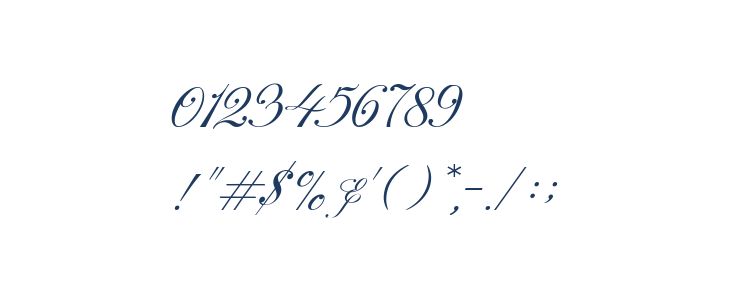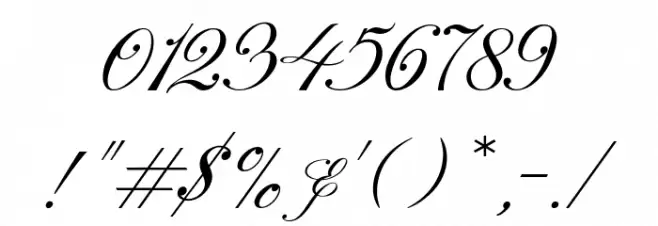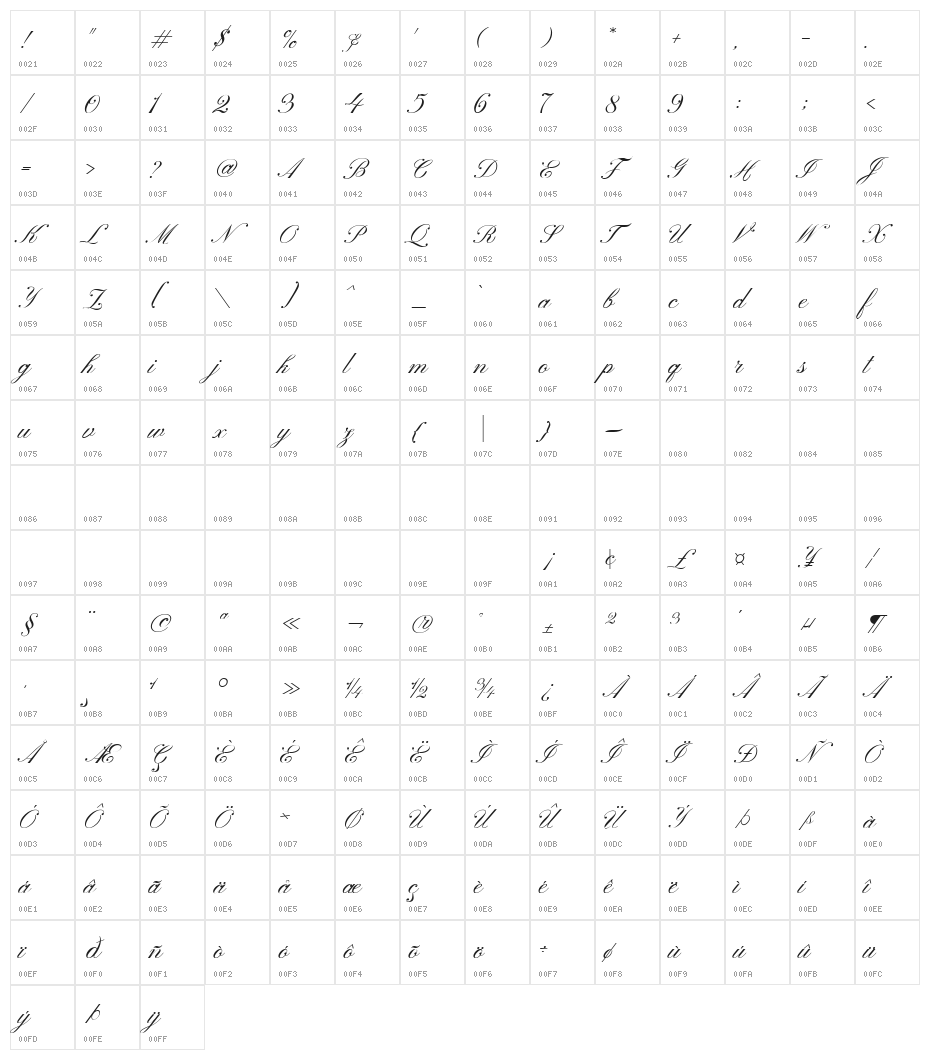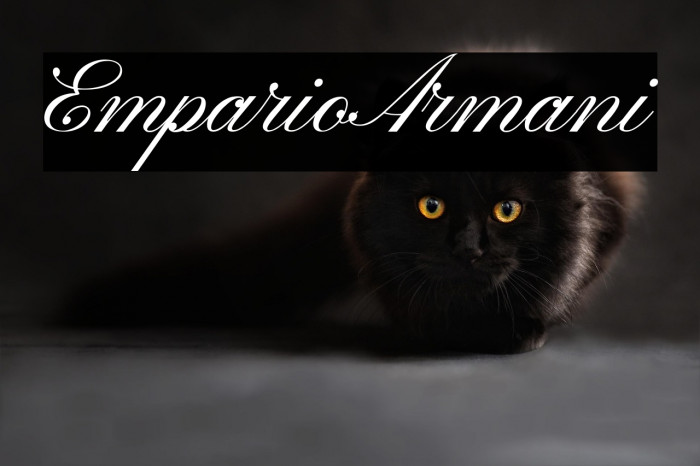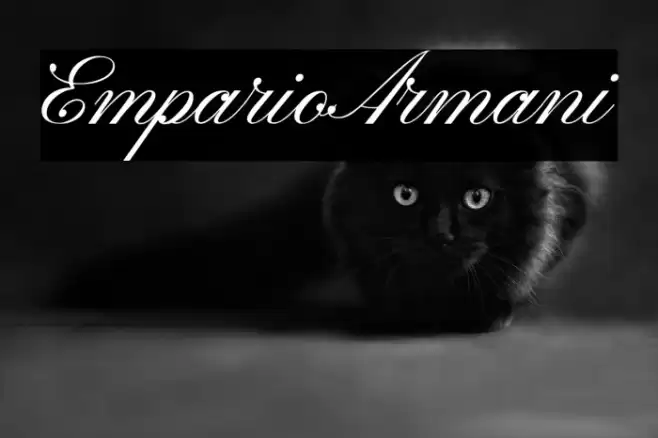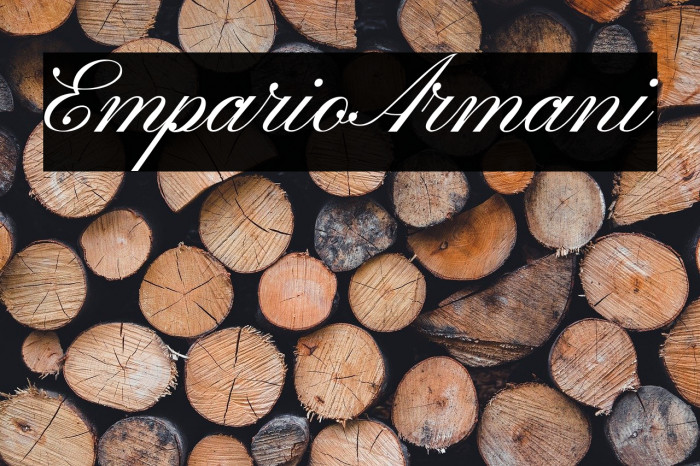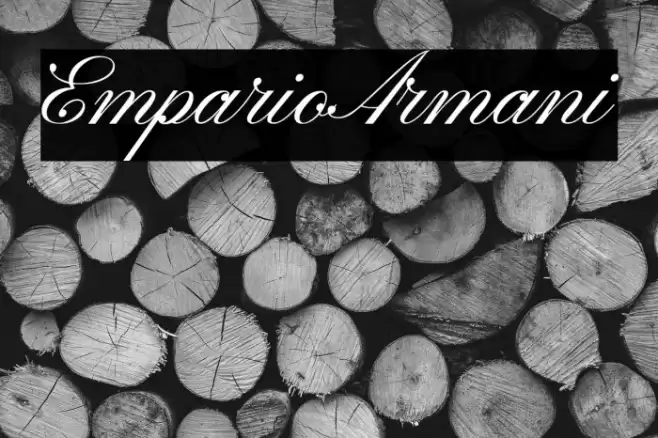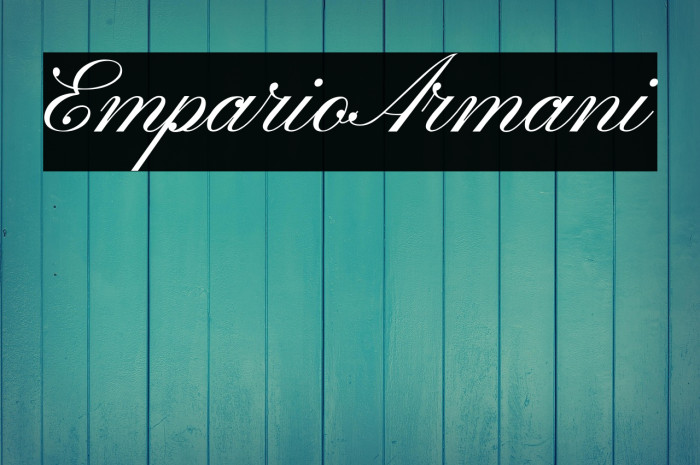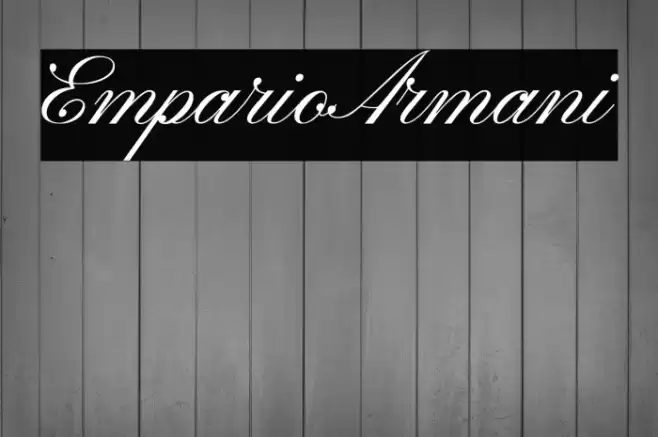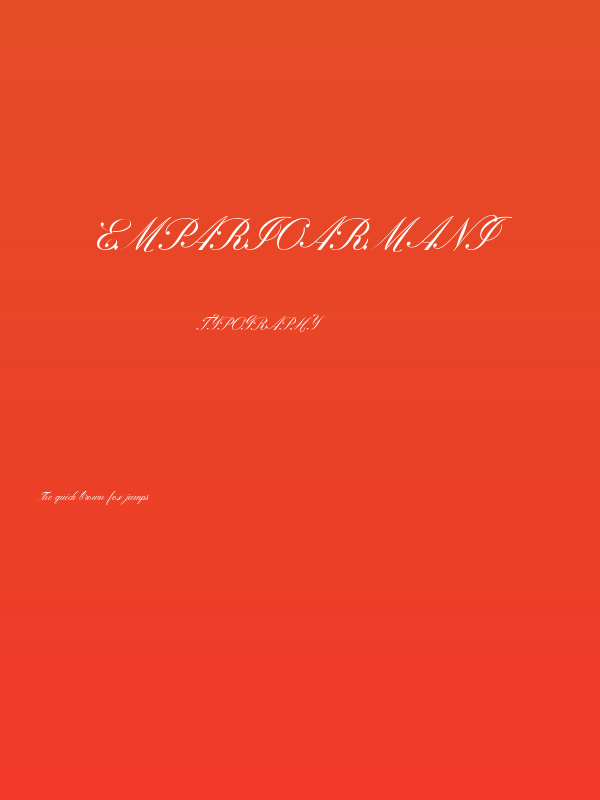
EmparioArmani Font
EmparioArmani Description
This elegant script font features flowing, cursive letterforms with a sophisticated and stylish appearance. The characters are intricately designed with smooth curves and delicate strokes, giving it a refined and luxurious feel. The uppercase letters are particularly ornate, with flourishes that add a touch of grandeur. The lowercase letters maintain a consistent flow, enhancing readability while preserving the font's decorative nature. The numerals and special characters are crafted to match the overall aesthetic, ensuring a cohesive look across all text. This font is ideal for projects that require a touch of elegance and class.
| Proposed Projects | Ideal for wedding invitations, luxury branding, high-end product packaging, and elegant stationery. |